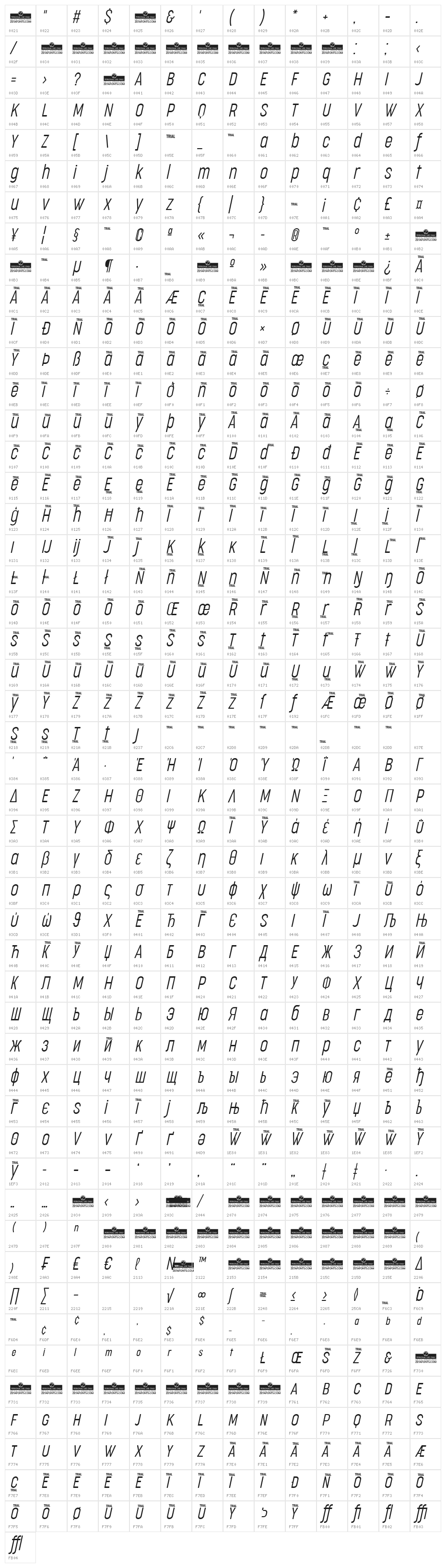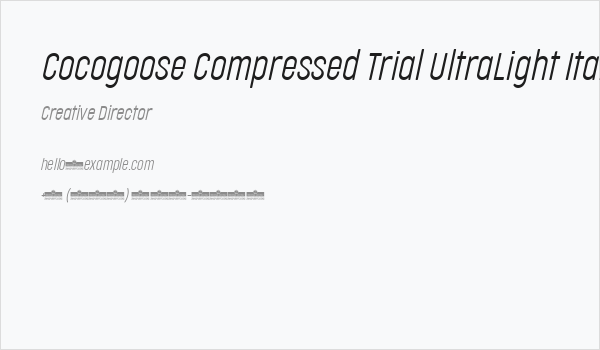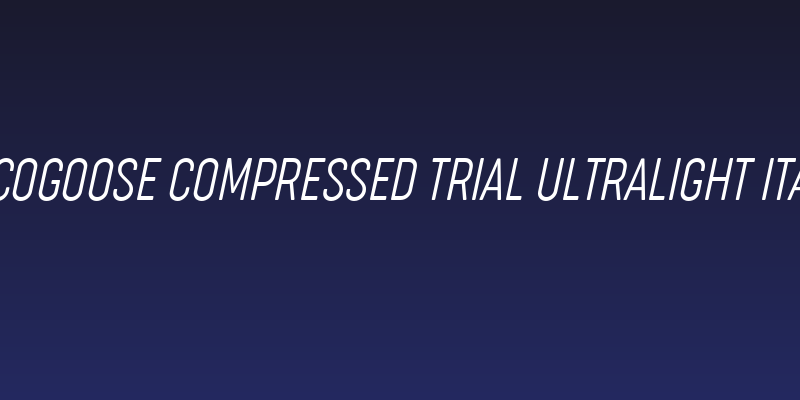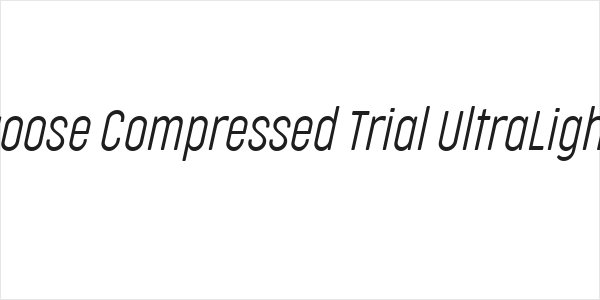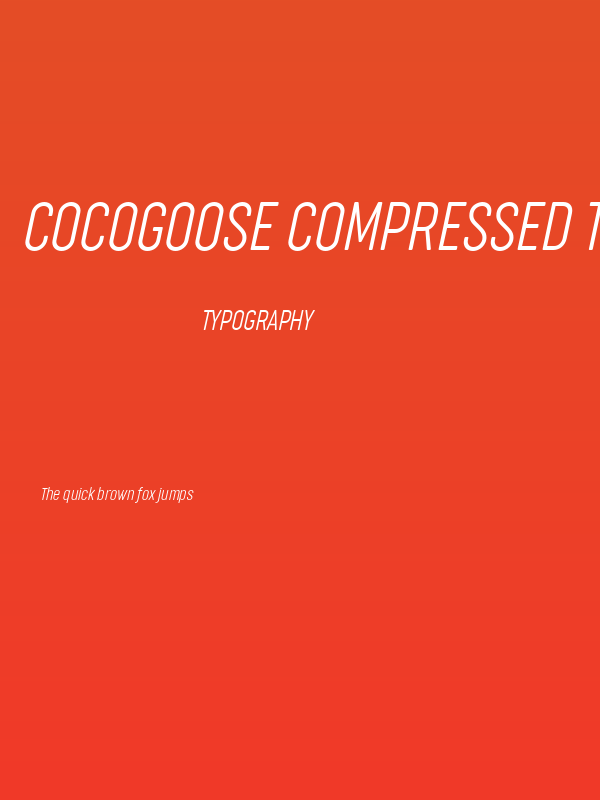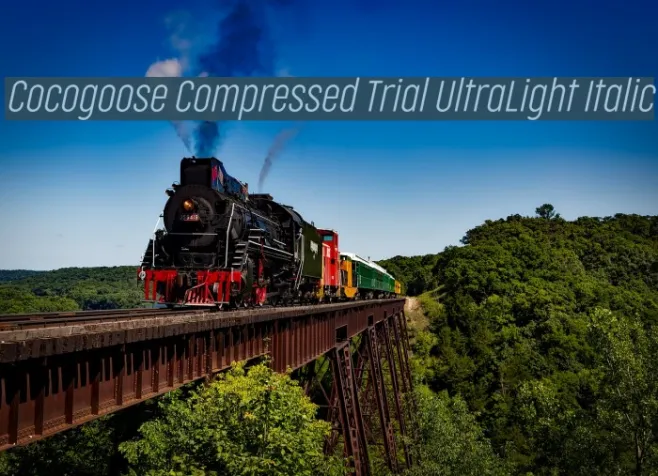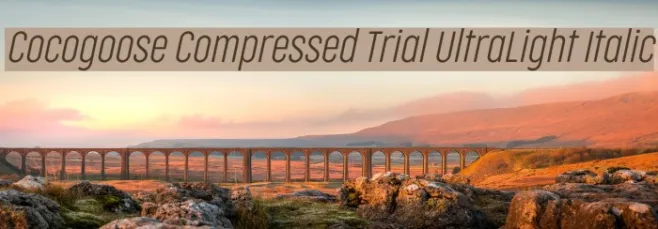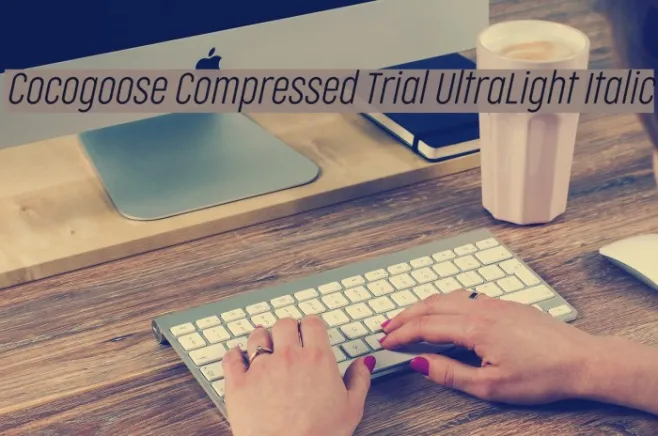
Cocogoose Compressed Trial UltraLight Italic Font
Cocogoose Compressed Trial UltraLight Italic Description
This font features a sleek, modern design with a compressed and ultra-light appearance. The italic style adds a dynamic and forward-leaning aspect to the characters, enhancing its contemporary feel. The uppercase and lowercase letters maintain a consistent slant, contributing to a cohesive look. The numerals and special characters are designed with the same attention to detail, ensuring uniformity across all elements. The overall aesthetic is clean and minimalistic, making it suitable for a variety of design applications. The font's narrow width allows for efficient use of space, making it ideal for projects where space is at a premium.
| Use Case | Headlines, Logos, Digital interfaces |
| Proposed Projects | Ideal for branding, editorial design, advertising, and digital interfaces where a modern and space-efficient typeface is needed. |